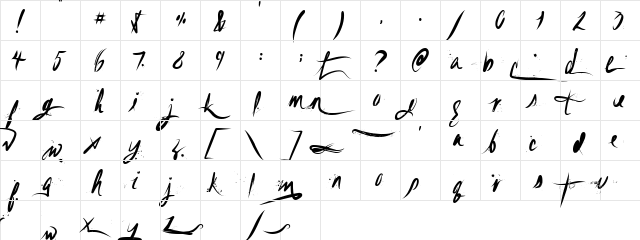
Unfolding Tragedy Textured
Design Context for Unfolding Tragedy Typeface
Unfolding Tragedy trades polish for personality, using distressed and eroded forms to bring grit and attitude to creative work.
Suited to punk-influenced zines, underground music branding, streetwear, and raw, anti-corporate design.
Pro Tip: Pair Unfolding Tragedy with intentionally raw or lo-fi design elements. Fighting against it with overly polished surroundings will undermine its personality.